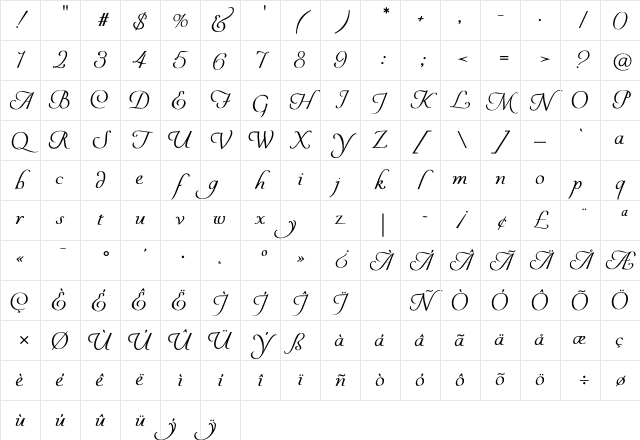
YoureInvited Heavy Free Font
YoureInvited Heavy
Foundry: Mario Arturo
Designer: Lawrence Rosa
Design Context for YoureInvited
YoureInvited is a composed and adaptable typeface that performs quietly and consistently across a wide range of design contexts.